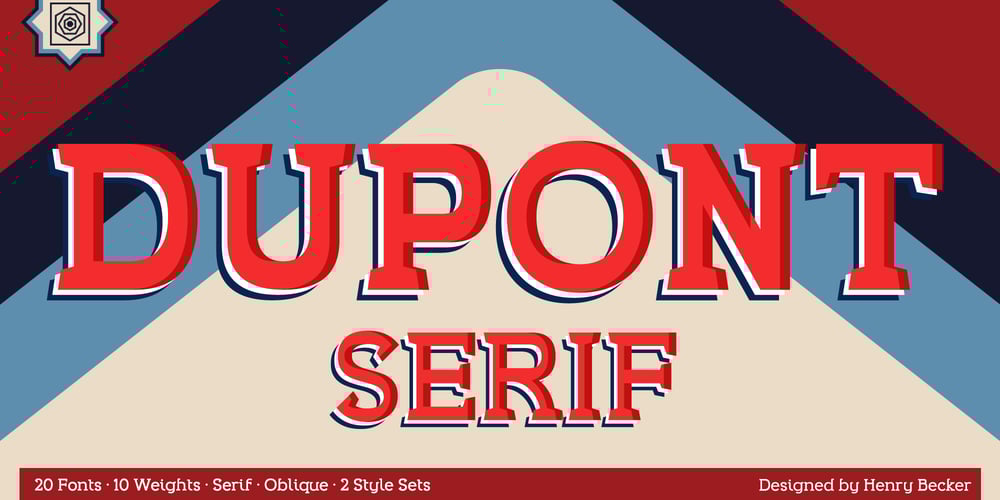
Dupont Serif Font Family was designed by Roland Hüse and published by Hexagon Foundry. Dupont Serif contains 20 styles and family package options. Dupont Serif, a graceful and modern serif font. Embodying clean lines, well-proportioned letterforms, and a unique charm, Dupont Serif stands as a versatile typeface suitable for various applications.The unpretentious nature of Dupont Serif allows it to be employed in a multitude of design scenarios.Offered in 10 weights alongside corresponding oblique characters and 2 style sets.